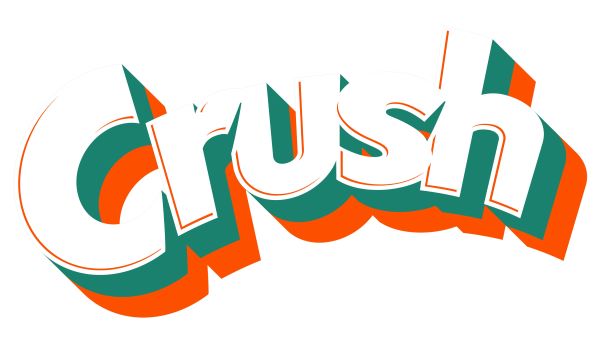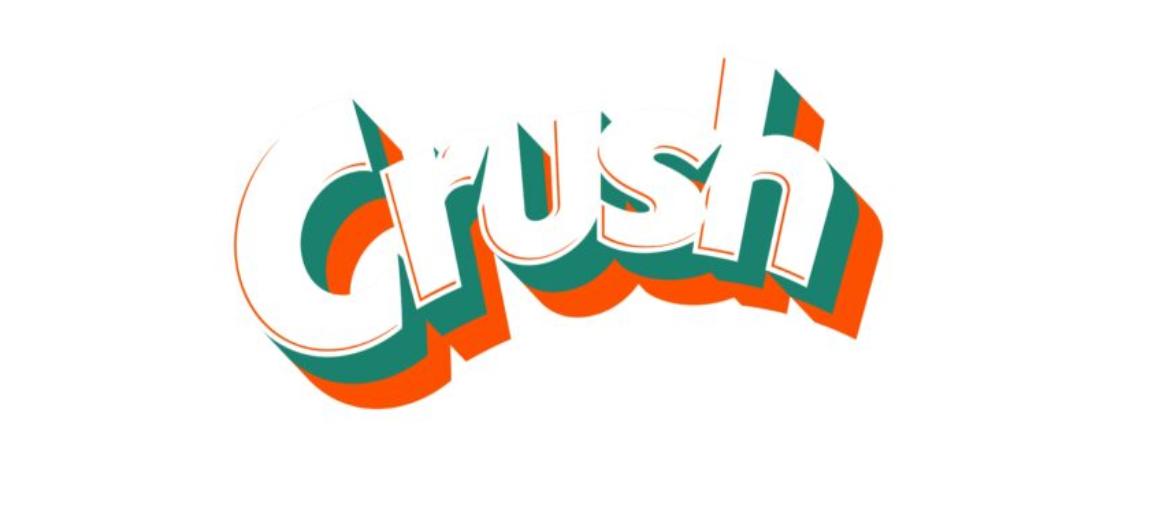
Crush Font
What Font is Used in the Crush Logo?
Crush font employs the bold Futura EF Extra Bold Shadowed typeface, featuring thick geometric letterforms with distinctive shadow effects that create eye-catching dimensional depth. Though Futura EF is premium, alternative font like Mouser 3D paired with shadow effects can achieve similar visual impact. This commanding, retro-modern typography perfectly captures Crush’s energetic personality and fruity flavor explosion, conveying fun, refreshment, and nostalgic soda fountain vibes that have delighted consumers since 1911.
About Crush
Crush is a fruit-flavored carbonated soft drink brand created in 1911 by chemist Neil C. Ward in California. Famous for its vibrant Orange Crush variety, the brand expanded to include grape, strawberry, and other fruit flavors. Known for its intense color and bold fruit taste, Crush became an iconic American soda brand. Currently owned by Keurig Dr Pepper, Crush remains a popular choice for fruit soda enthusiasts seeking sweet, refreshing beverages.